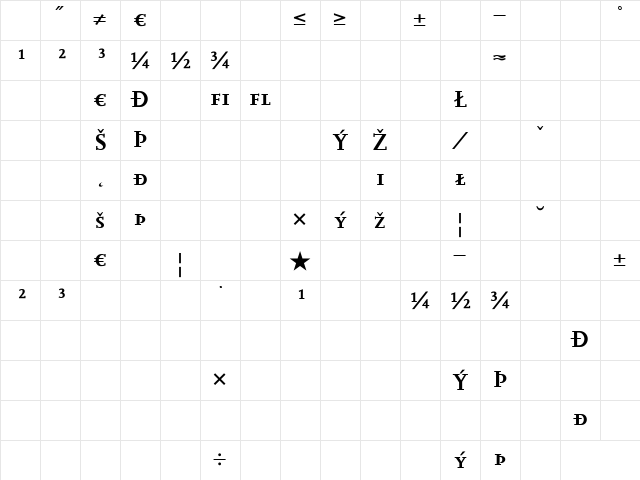
Scala Bold Free Font
Scala Bold
Design Context for Scala
Scala is a composed and adaptable typeface that performs quietly and consistently across a wide range of design contexts. Its bold stroke weight gives it real presence on the page.